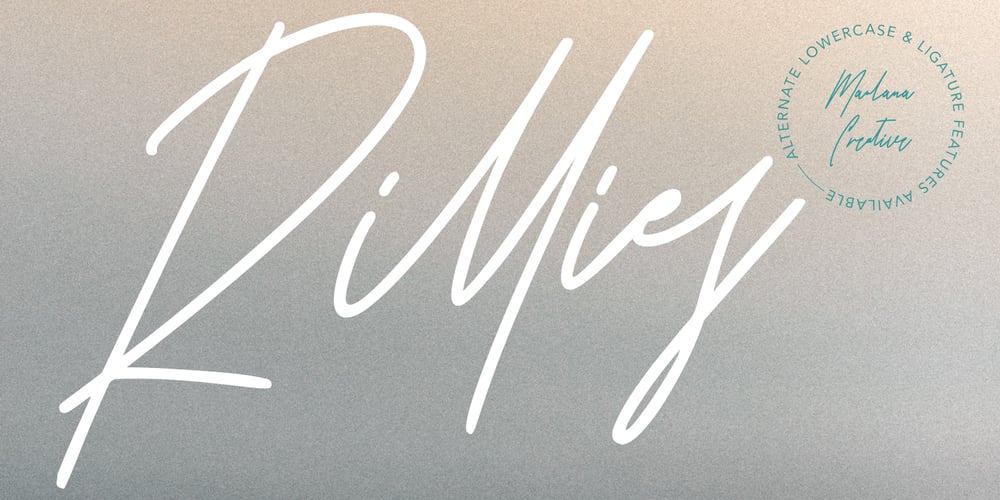
Rillies
Rillies font
Rillies Font Family was designed by Gilang Maulana and published by Maulana Creative. Rillies contains 1 styles and family package options. Give your designs an authentic handcrafted feel. “Rillies Modern Signature Font” is perfectly suited to stationery, logos and much more.Thanks for Watching!